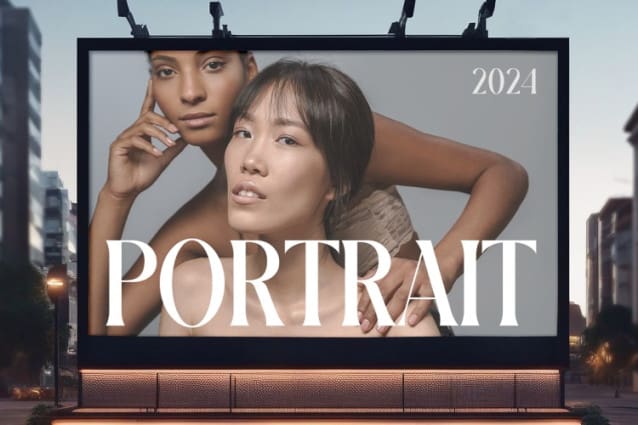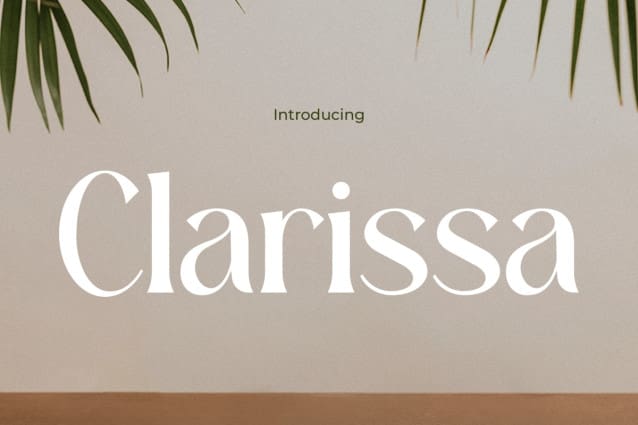
Clarissa Font
Clarissa Font epitomizes elegance, fashionability, and femininity, serving as the quintessential choice for brands seeking to embody sophistication and style. With its graceful strokes and refined details, Clarisaa Font exudes timeless charm, making it the perfect complement for luxury branding endeavors. Whether adorning product labels, promotional materials, or digital assets, this font elevates the brand’s aesthetic with its chic and feminine allure, leaving a lasting impression of elegance and sophistication.
Crafted to inspire confidence and allure, Clarissa Font effortlessly blends fashion-forward design with an air of refinement. Its sleek lines and sophisticated curves add a touch of glamour to any branding project, ensuring that the brand stands out with grace and sophistication. Whether used in haute couture branding, editorial layouts, or chic advertising campaigns, ClarisaaFont embodies the essence of elegance, making every brand communication resonate with a sense of refined femininity and contemporary flair.